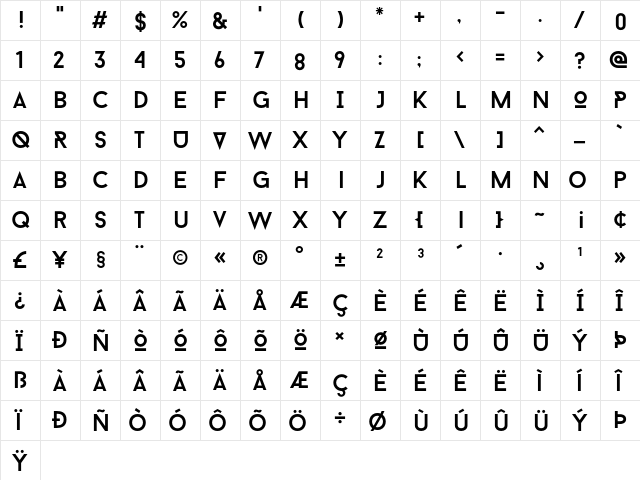
Baron Neue Regular
Design Context for Baron Neue Typeface
Baron Neue is a composed and adaptable typeface that performs quietly and consistently across a wide range of design contexts.
Pro Tip: Pair Baron Neue with a font of contrasting weight or personality to build a more expressive typographic hierarchy.